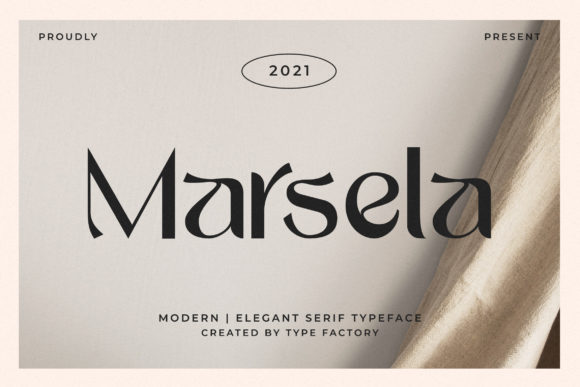
Marsela Font: A Timeless Serif Font to Elevate Your Creative Expression
In a world of digital communication, where words dance across screens and pixels, the choice of font holds immense power. It's not just about conveying information; it's about creating an experience, enchanting your audience with every stroke and curve. Meet Marsela Font, a classic serif font that embodies elegance, sophistication, and timeless beauty. Prepare to be captivated by its ravishing style and embark on a creative journey like never before.
With Marsela Font, you hold the key to unlocking a world of possibilities. Whether you're crafting heartfelt wedding invitations, designing elegant stationary art, or captivating social media posts, Marsela Font will elevate your creations to new heights. Its graceful serifs and sweeping curves add a touch of refinement to every letter, making your words dance with an unmatched charm.
Picture this: your wedding invitation adorned with Marsela Font's intricate details, exuding an air of timeless romance. Your stationary art transformed into a symphony of elegance, each letter a brushstroke of artistry. Your social media posts radiating sophistication, capturing the attention of your audience with a visual feast. Marsela Font is the ultimate creative companion, enhancing your every word with a touch of timeless beauty.
But Marsela Font's allure extends far beyond weddings and stationary. Its versatility knows no bounds. Logos, branding, posters, and even website designs find new life when touched by Marsela Font's magic. Its ability to blend seamlessly with various styles and themes makes it a true creative chameleon, adapting effortlessly to your unique vision.
So, let Marsela Font be your muse, your creative spark that ignites a world of stunning visuals. Experience the joy of crafting designs that resonate with your audience, leaving an indelible mark on their hearts. Marsela Font is more than just a font; it's an invitation to unleash your inner artist and create something truly extraordinary.